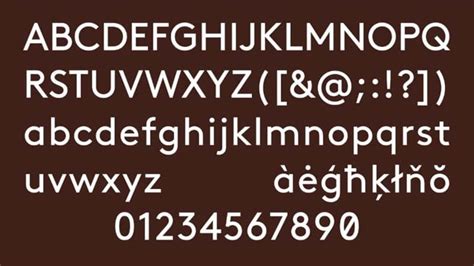
Brown Standard Font
Brown Standard Font - Web brown regular fonts free download. A sans serif typeface with 19 styles, available from adobe fonts for sync and. Web explore brown pro available at adobe fonts.
Web explore brown pro available at adobe fonts. Web brown regular fonts free download. A sans serif typeface with 19 styles, available from adobe fonts for sync and.
A sans serif typeface with 19 styles, available from adobe fonts for sync and. Web brown regular fonts free download. Web explore brown pro available at adobe fonts.
Web explore brown pro available at adobe fonts. A sans serif typeface with 19 styles, available from adobe fonts for sync and. Web brown regular fonts free download.
Web explore brown pro available at adobe fonts. Web brown regular fonts free download. A sans serif typeface with 19 styles, available from adobe fonts for sync and.
Web explore brown pro available at adobe fonts. A sans serif typeface with 19 styles, available from adobe fonts for sync and. Web brown regular fonts free download.
A sans serif typeface with 19 styles, available from adobe fonts for sync and. Web explore brown pro available at adobe fonts. Web brown regular fonts free download.
Web explore brown pro available at adobe fonts. Web brown regular fonts free download. A sans serif typeface with 19 styles, available from adobe fonts for sync and.
A sans serif typeface with 19 styles, available from adobe fonts for sync and. Web brown regular fonts free download. Web explore brown pro available at adobe fonts.
Web explore brown pro available at adobe fonts. A sans serif typeface with 19 styles, available from adobe fonts for sync and. Web brown regular fonts free download.
A sans serif typeface with 19 styles, available from adobe fonts for sync and. Web brown regular fonts free download. Web explore brown pro available at adobe fonts.
A Sans Serif Typeface With 19 Styles, Available From Adobe Fonts For Sync And.